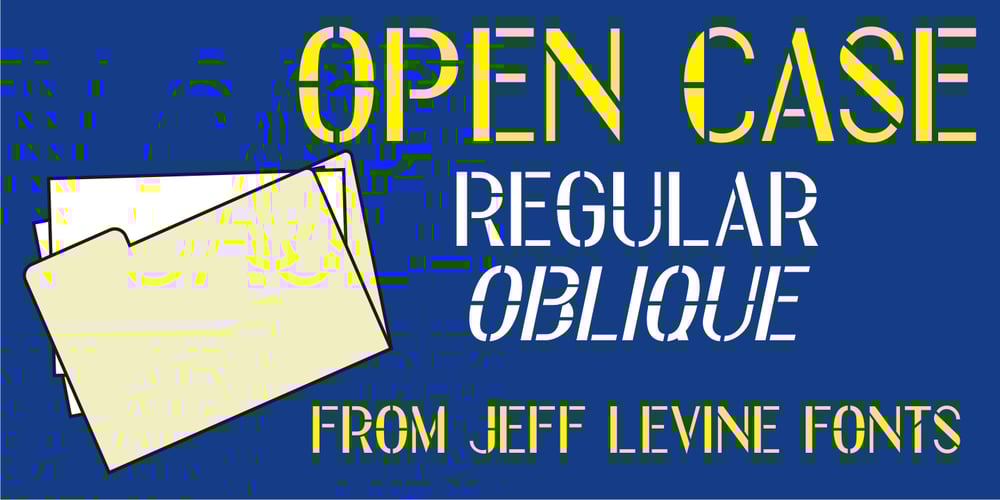
Open Case JNL Font Family was designed by Jeff Levine and published by Jeff Levine. Open Case JNL contains 2 styles and family package options. Open Case JNL is the distant cousin to the 2009 release by Jeff Levine Fonts called Cold Case JNL, as both were based on sets of lettering stencils designed and manufactured by the Huntington Oil Cured Stencil Company (originally of Huntington, New York and later of Delray Beach, Florida). While sharing similar design traits, there are enough differences to have both type designs work well together in a complimentary setting. Open Case JNL is available in regular and oblique styles.